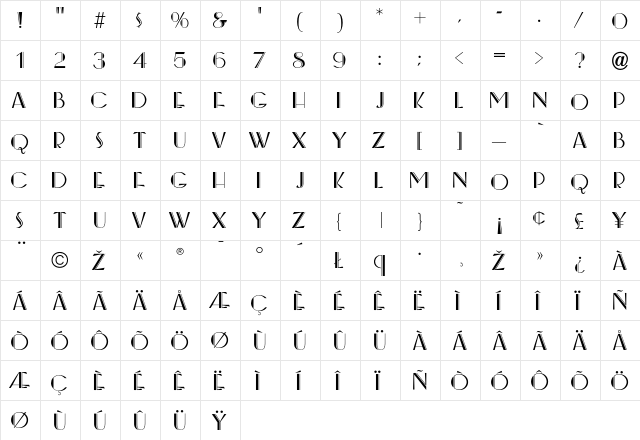
BeverlyHills Regular
Design Context for BeverlyHills Typeface
BeverlyHills is a composed and adaptable typeface that performs quietly and consistently across a wide range of design contexts.